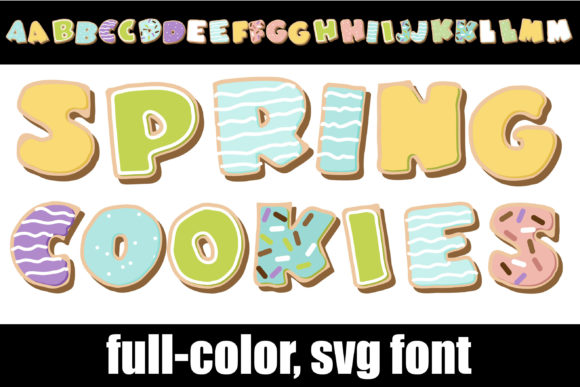
Introducing Spring Cookies Font, the perfect addition to your font collection for anyone seeking the best font for SVG designs. Created by the talented Illustration Ink, this font family combines the power of color and simplicity to bring your projects to life.
Imagine your designs adorned with simple yet eye-catching cookie-like lettering, frosted in delightful spring colors. Each character is meticulously crafted to captivate your audience and evoke a sense of joy and playfulness. With Spring Cookies Font, your creations will stand out from the crowd, leaving a lasting impression on anyone who lays eyes on them.
Spring Cookies Font is more than just a font. It's a gateway to unlimited creativity and boundless possibilities. Whether you're designing logos, invitations, social media graphics, or even personalized gifts, this font will breathe life into your projects and make them truly unforgettable.
Don't settle for ordinary fonts that fail to make an impact. With Spring Cookies Font, you can infuse your designs with emotion, energy, and a touch of whimsy. Let your imagination run wild as you explore the endless combinations and possibilities this font has to offer.